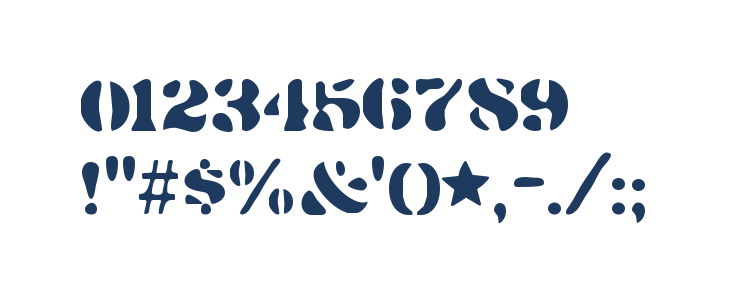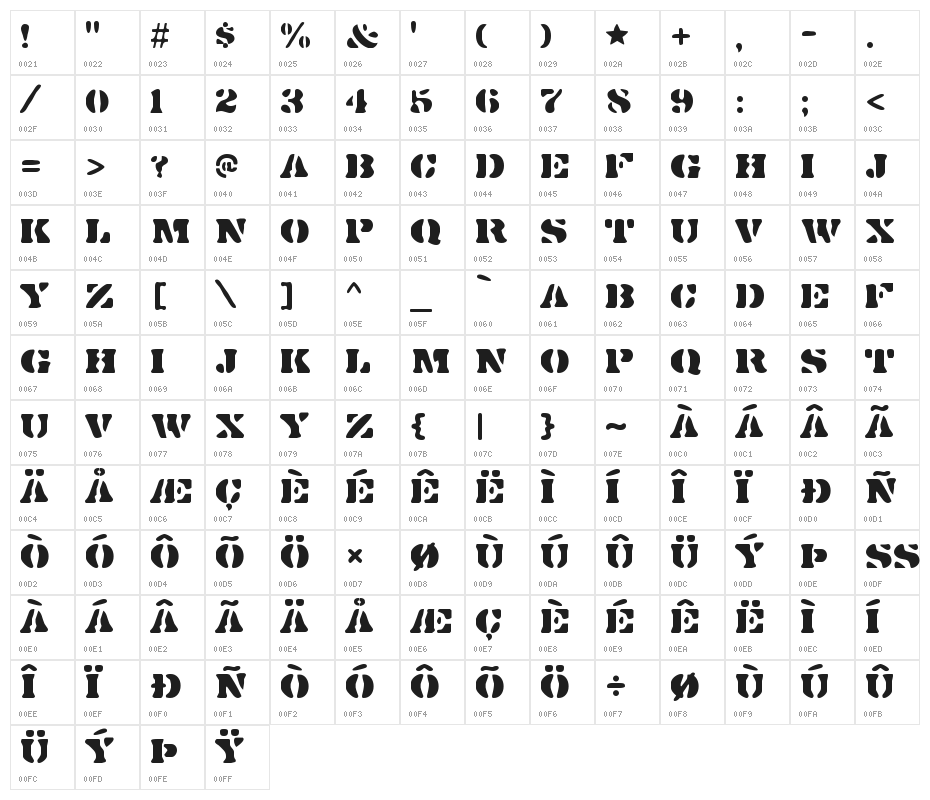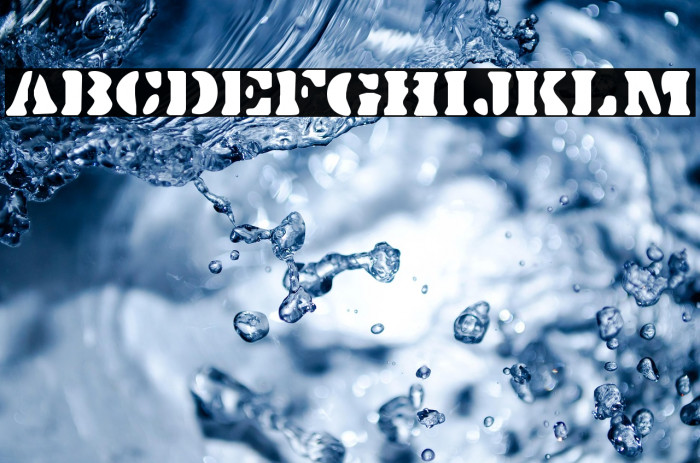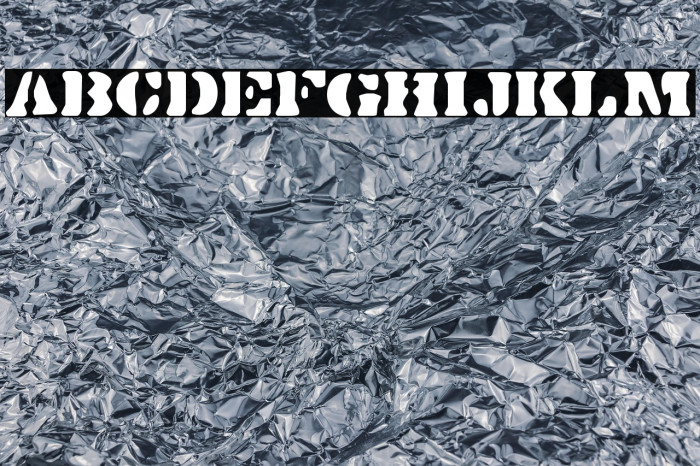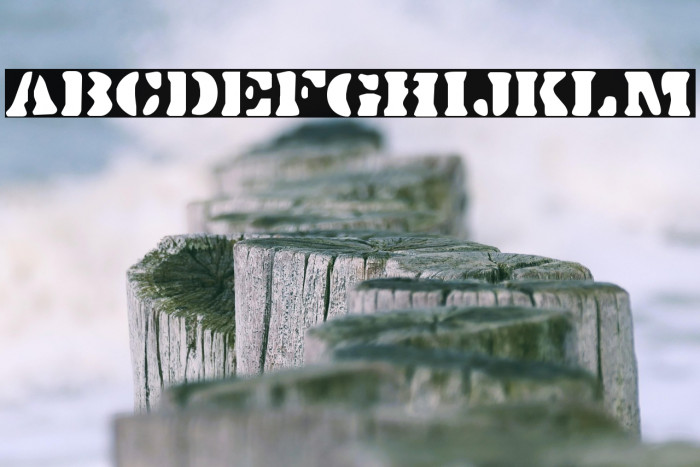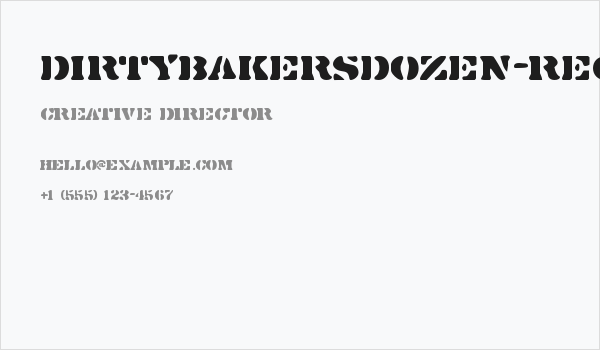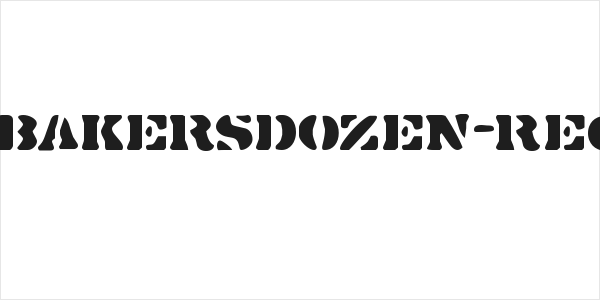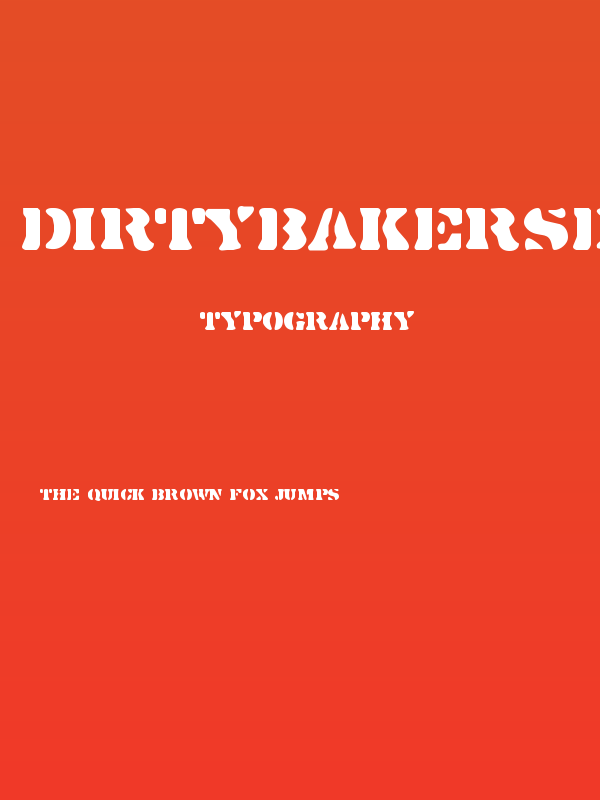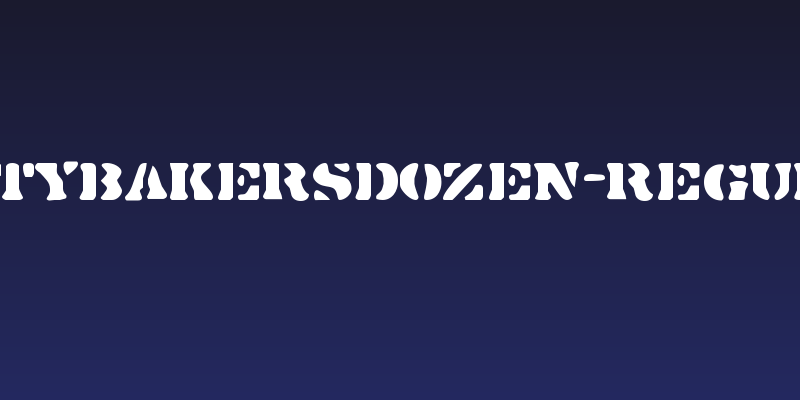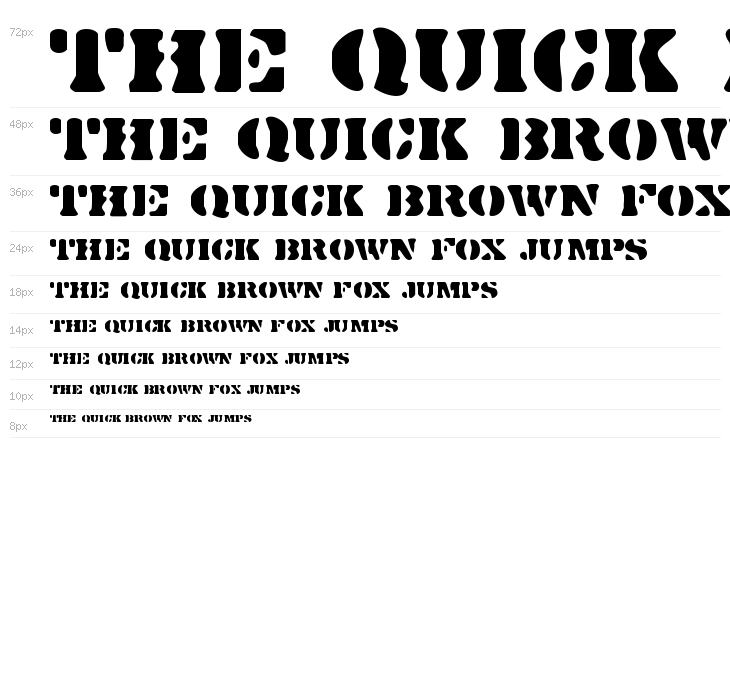
DirtyBakersDozen-Regular Font
DirtyBakersDozen-Regular Description
This font features a bold, stencil-like design with strong geometric shapes and cut-out sections that create a rugged, industrial feel. The characters are uniformly bold, with consistent thickness throughout, giving it a robust and impactful appearance. The uppercase and lowercase letters maintain a cohesive style, with the numbers and special characters following the same design principles. The font's distinct cut-out style makes it highly recognizable and suitable for projects that require a strong visual presence.
| Overall Style | Industrial, Bold, Stencil |
| Proposed Projects | Ideal for posters, signage, branding, and any project needing a bold, industrial look. |